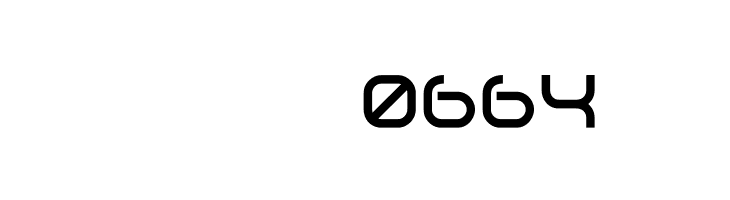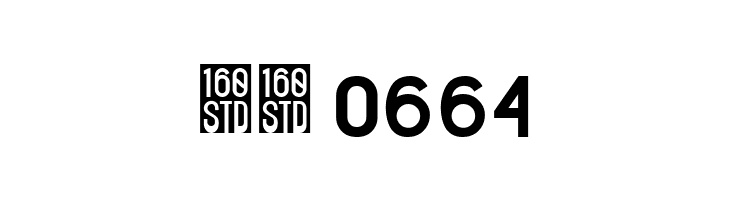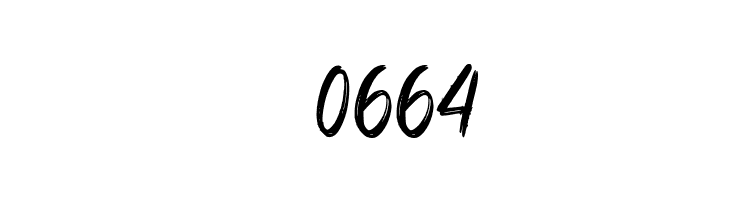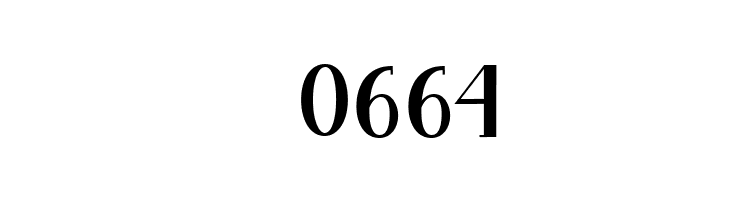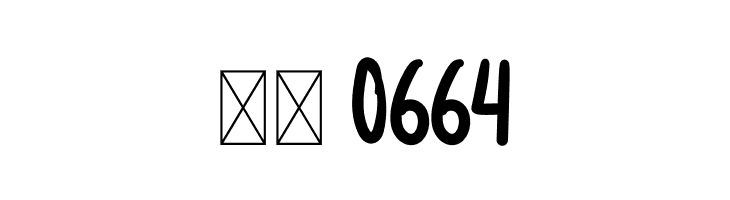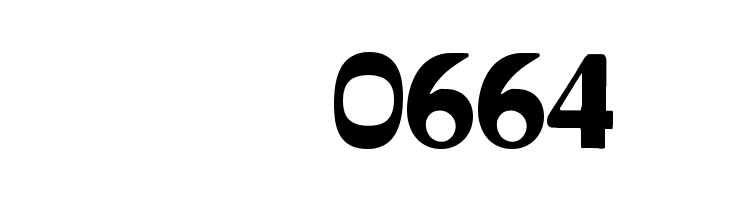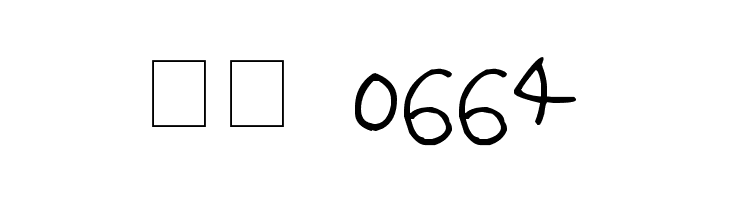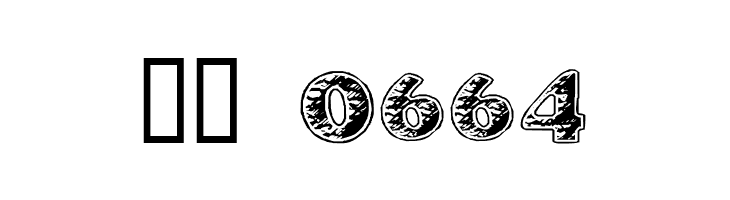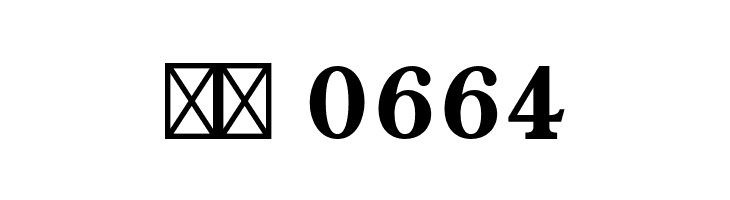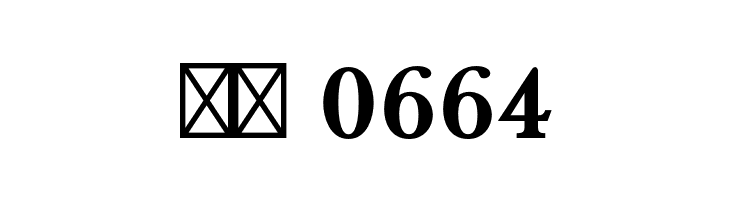
A modern, geometric font with bold curves and sharp angles.
A bold, geometric sans-serif font with a modern, industrial style.
A bold, dynamic font with a twisted, hand-drawn appearance.
A bold, hand-drawn 3D block font with intricate line work.
A bold, twisted outline font with a dynamic, hand-drawn style.
A playful, whimsical font combining script and sans-serif elements.
A dynamic and elegant script font with fluid, cursive strokes.
A sophisticated, elegant handwritten font with flowing, interconnected letterforms.
A cursive, handwritten-style font with elegant, flowing letters.
A bold, gothic Blackletter font with intricate, angular designs and pronounced serifs.
A playful, bold font with rounded strokes and whimsical character shapes.
A lively and expressive handwritten font with fluid strokes and medium contrast.
Casual handwritten font with a playful style.
A classic serif font with elegant strokes and moderate contrast.
A bold, classic serif font with elegant strokes and high readability.
A bold, italic serif font with classic elegance and dynamic style.
A bold, classic serif font with strong, defined strokes and sharp serifs.
A bold, italic serif font with classic elegance and strong presence.
A classic serif typeface with elegant italic styling and balanced contrast.
A bold, energetic brush script with dynamic strokes and expressive characters.
A lively and elegant script font with flowing, cursive letterforms.
A bold, graffiti-inspired font with sharp angles and dynamic shapes.
A graceful, flowing script font with a handwritten style.
A playful, whimsical font with flowing, cursive-like strokes and rounded edges.
A bold, high-contrast serif font with a modern yet classic appeal.
A bold, distressed serif font with a vintage, textured style.
A playful, casual handwritten font with uneven strokes and a whimsical style.
A bold, artistic font with a hand-drawn, textured style.
A modern, geometric sans-serif font with balanced proportions.
Playful handwritten font with rounded edges.
A bold, dramatic blackletter font with intricate, ornate letterforms.